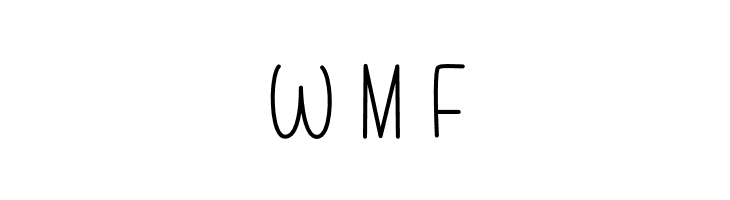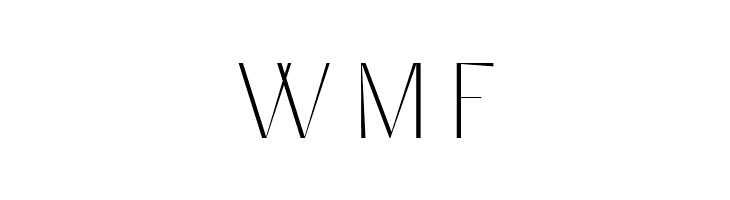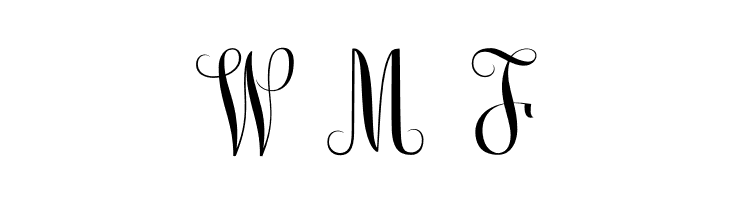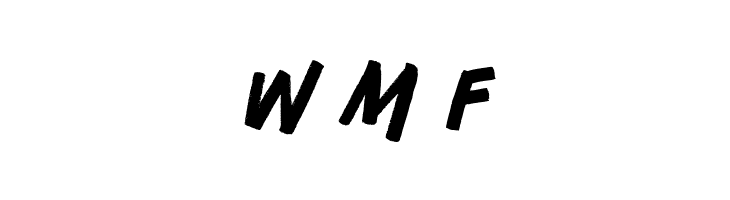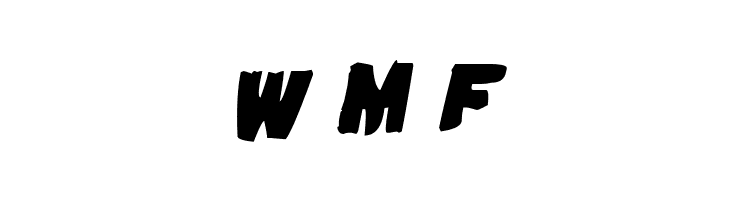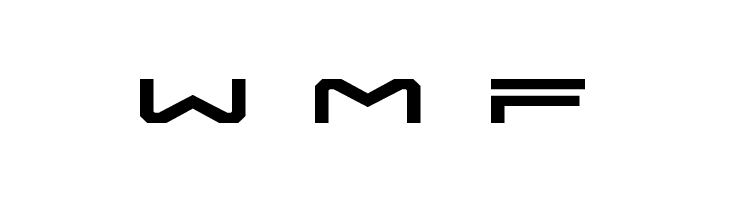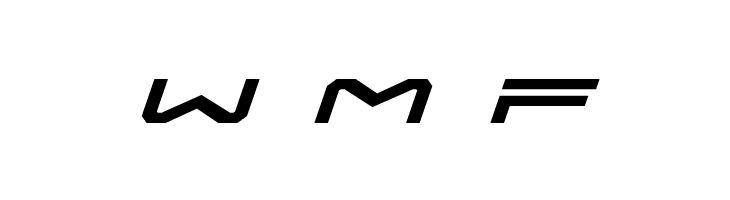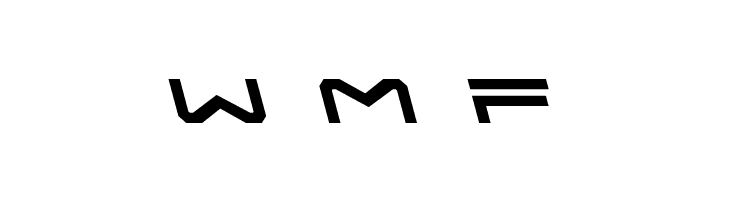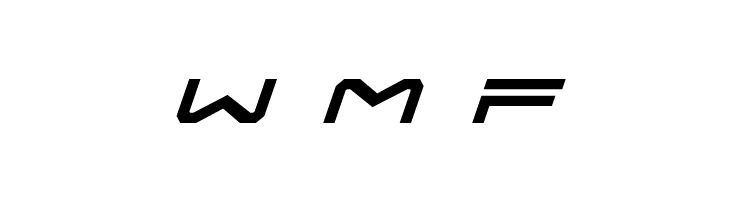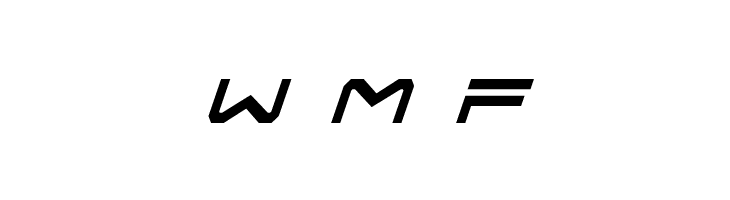
A bold, condensed font with a futuristic, geometric design.
A bold, condensed, and italic font with a modern, angular design.
A bold, condensed, and italic font with a futuristic and angular design.
A bold, expanded, and futuristic font with geometric shapes and sharp angles.
A bold, expanded, and italicized font with a futuristic and angular design.
A bold, italicized font with a futuristic and angular design.
A bold, italic, and futuristic font with angular, slanted characters.
A bold, futuristic font with angular, slanted characters and a modern aesthetic.
A bold, semi-italic font with a futuristic and dynamic design.
A futuristic, geometric font with condensed and angular letterforms.
A futuristic, condensed italic font with sharp angles and a sleek design.
A futuristic, geometric font with bold, angular characters and expanded width.
A futuristic, italicized font with expanded, angular letterforms.
A futuristic italic font with sharp, angular lines and a dynamic, modern style.
A futuristic, angular font with sharp edges and a dynamic slant.
A sleek, futuristic font with angular, slanted characters.
A bold, rugged font with a classic biker aesthetic.
A bold, playful italic font with a hand-drawn, energetic style.
A sleek, modern font with tall, narrow characters and minimal contrast.
A playful, hand-drawn font with tall, narrow letters and a whimsical style.
A dynamic, brush-style handwritten font with bold, sweeping strokes.
A dynamic brush script font with expressive, fluid strokes.
A bold, brush-style font with dynamic, energetic strokes.
A playful, bold font with rounded strokes and a hand-drawn feel.
An elegant, ornate script font with intricate swirls and bold, modern numerals.
An elegant script font with intricate swirls and flourishes, perfect for formal designs.
A clean, monospaced typeface with uniform spacing and modern design.
A bold, monospaced font with uniform width and modern, rounded edges.
A bold, oblique monospaced font with a modern and dynamic style.
A monospaced oblique font with a modern and dynamic style.